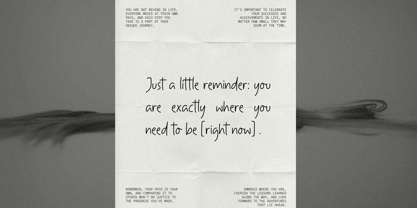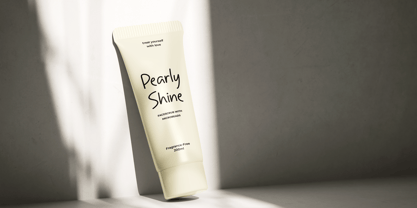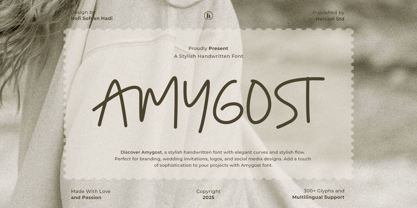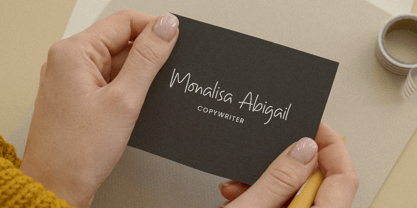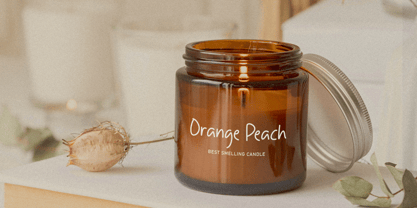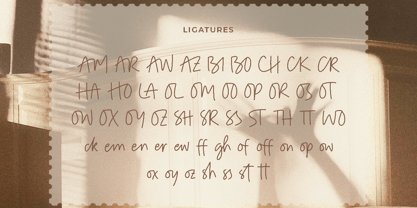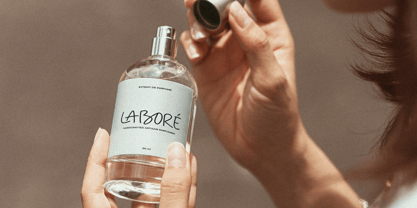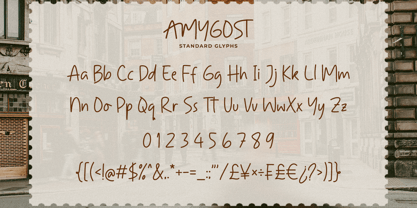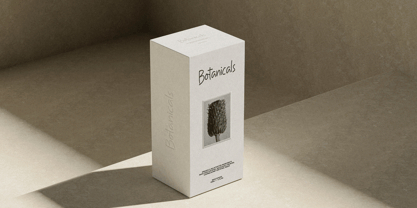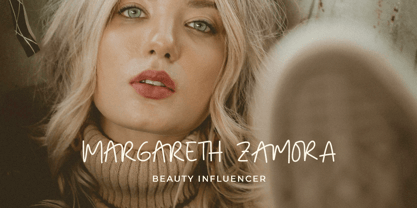
Amygost
The Amygost Font Family was designed by Nofi Sofyan Hadi and published by Heinzel Std. Amygost contains 3 styles and family package options. More about this family
Amygost is a stylish handwritten font that captures a natural, flowing handwriting feel with elegant curves and a warm personality. Designed to look authentic yet polished, Amygost is perfect for branding, wedding invitations, logos, quotes, packaging, and social media graphics. Its smooth strokes and balanced rhythm add a personal, sophisticated touch to any design, making your message feel more expressive and human. Whether used for headlines or creative accents, Amygost brings charm and creativity to modern visual projects.